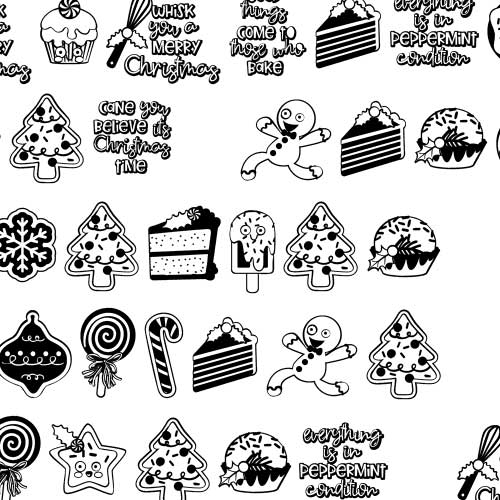
DB Sugarplum - Goodies - DB
This whimsical doodlebat font features 26 fun holiday treats. Perfect for Christmas, cards, crafts, gifts, classrooms, planner stickers, scrap book pages and more!